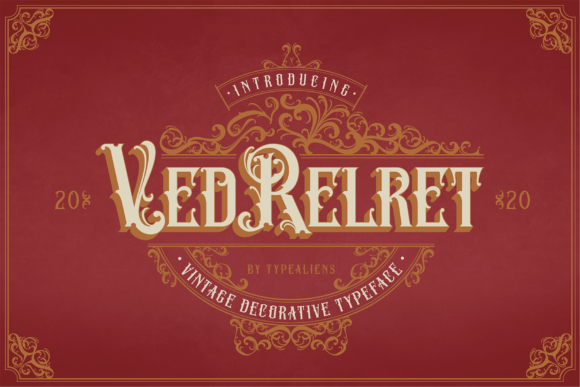
Unveil the Timeless Beauty of Ved Relret: A Display Font Oozing Vintage Charm
Step into a world of retro elegance with Ved Relret, a display font that exudes a timeless vintage aesthetic. Crafted by the talented typealiens, this font is a true gem for designers seeking to infuse their creations with a touch of nostalgia.
Transport yourself to an era of sophistication and charm with Ved Relret. Its meticulously designed characters carry the weight of history, adding depth and character to your designs. Whether you're crafting logos, posters, or eye-catching headlines, this font will effortlessly elevate your work.
Dive into the world of Ved Relret and discover a font that dances between classic and contemporary. Its unique letterforms, inspired by vintage signage and typography, lend an air of authenticity and intrigue to your designs. Prepare to be captivated by its intricate details and subtle curves that evoke a sense of nostalgia.
With Ved Relret, you hold the key to unlocking a world of creative possibilities. Its versatility knows no bounds, allowing you to breathe life into logos, posters, branding projects, and more. Unleash your imagination and let the font's vintage charm work its magic, transforming your designs into captivating masterpieces.
Embrace the timeless elegance of Ved Relret and elevate your designs to new heights. Its vintage aesthetic and captivating letterforms will leave a lasting impression on your audience, ensuring your message is conveyed with style and impact.